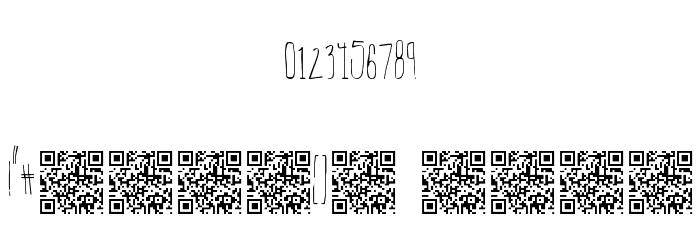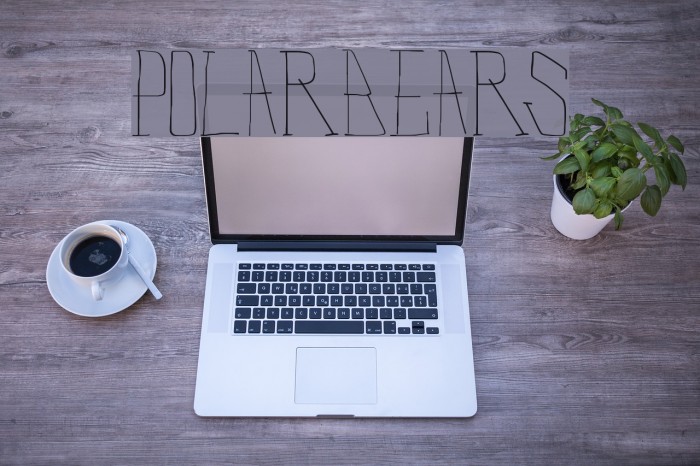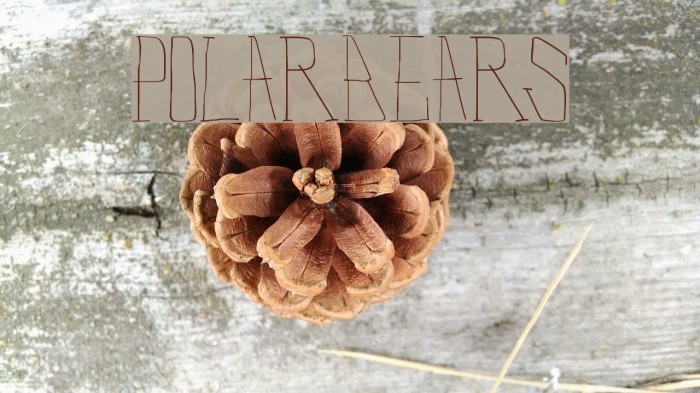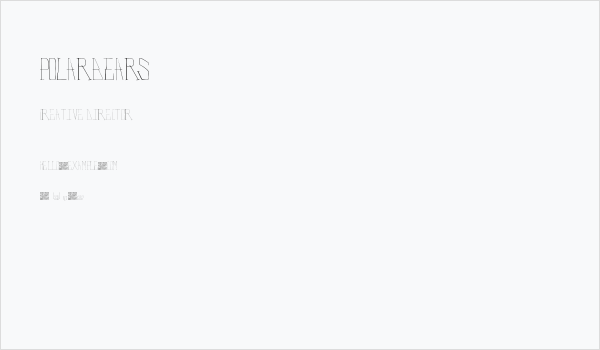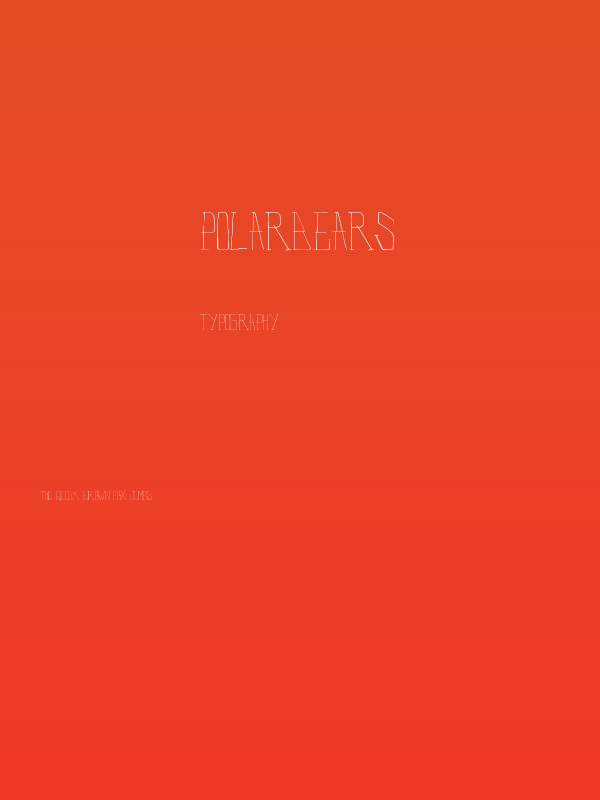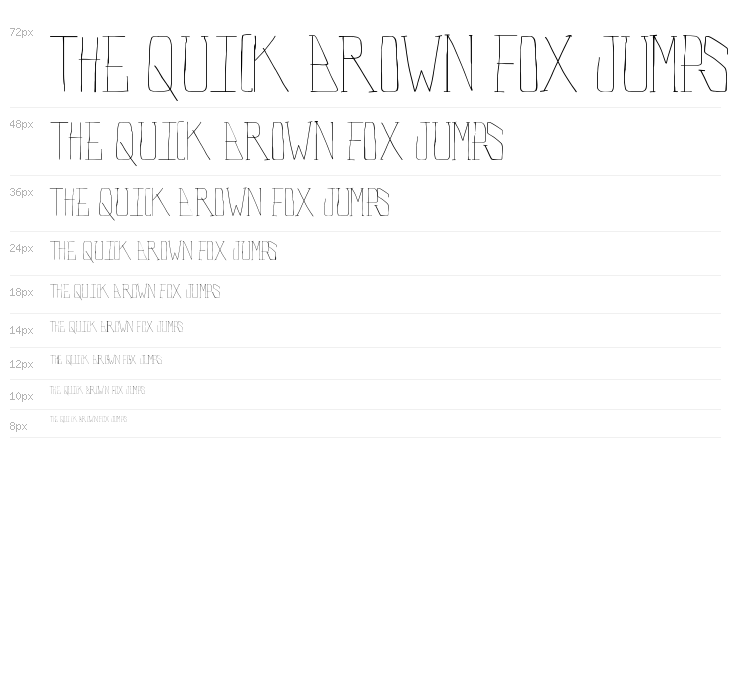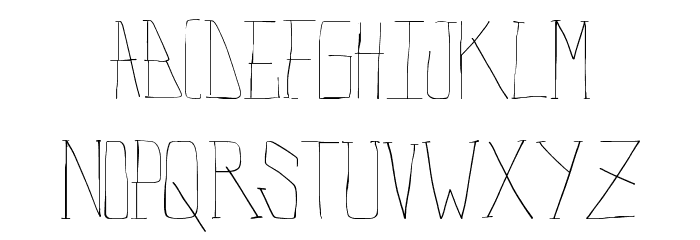
PolarBears Font
PolarBears Description
This font features a unique, hand-drawn style with thin, uneven strokes that give it a whimsical and artistic appearance. The characters are tall and narrow, with a playful irregularity in their form, creating a sense of movement and spontaneity. The uppercase and lowercase letters maintain a consistent height, while the numbers and special characters follow the same quirky design. This font's distinctiveness makes it stand out, offering a creative flair that is both modern and artistic.
| Overall Style | Artistic |
| Use Case | Logos, Posters, Creative projects |
| Proposed Projects | Ideal for creative projects such as children's book illustrations, artistic posters, or unique branding materials. |